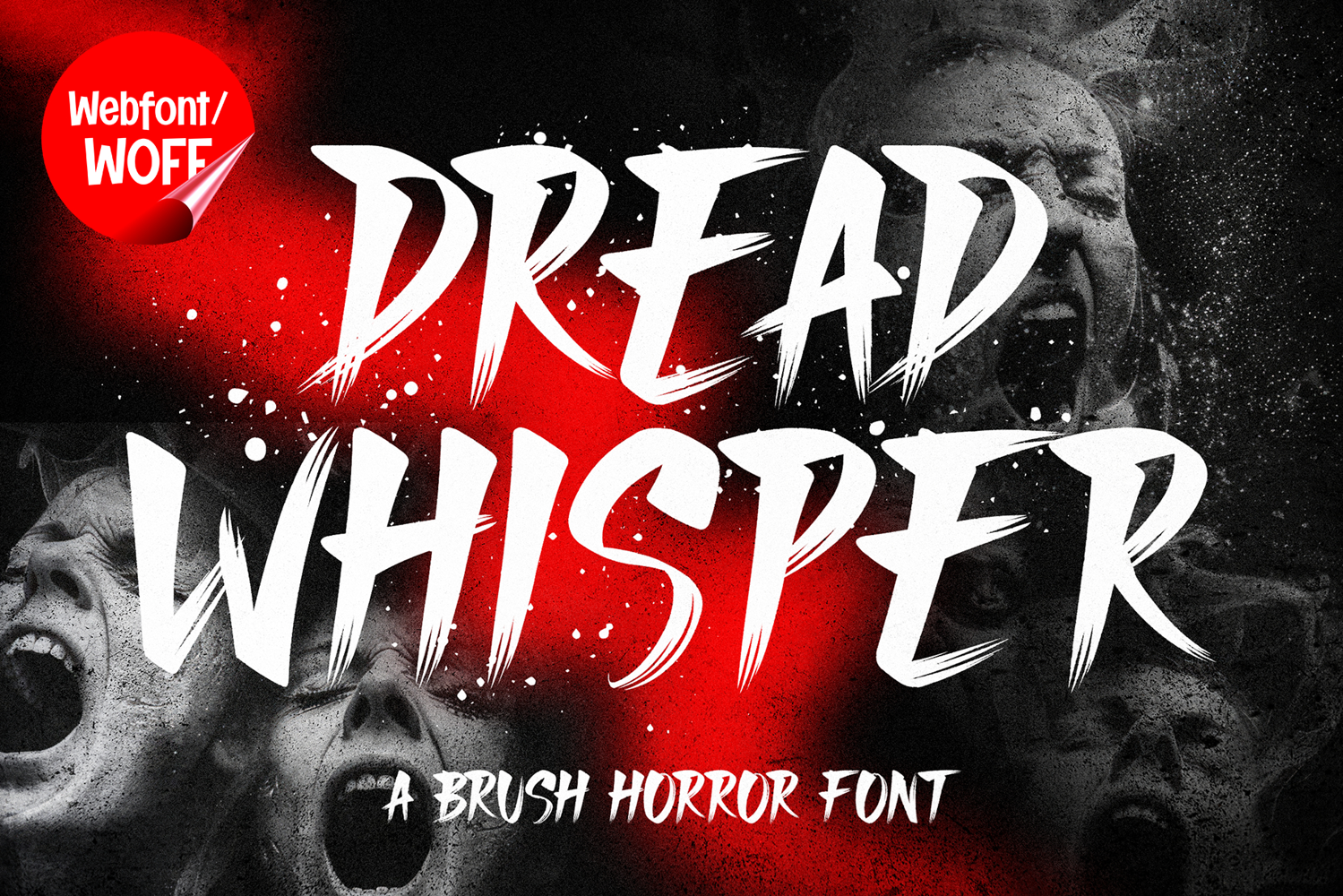
Dread Whisper | Halloween Brush Webfont for Spooky Design
Dread Whisper is a Halloween brush webfont designed to create a haunting and atmospheric look for modern website design. Inspired by eerie brush strokes, horror storytelling, and dark artistic expression, this font features rough textures and irregular forms that give it a raw and unsettling character. It is an excellent choice for projects that aim to deliver a dramatic, spooky, and immersive visual experience.
Dread Whisper includes a complete set of uppercase characters designed with expressive brush-style strokes. The letterforms have a hand-painted appearance with uneven edges and natural flow, creating a sense of movement and tension. These characteristics make it ideal for headlines, banners, hero sections, and featured content where a bold and eerie presence is needed.
In addition to letters, the font includes numbers and punctuation, allowing flexible usage across various parts of a website. It works well for Halloween promotions, horror-themed content, event announcements, and call-to-action sections. Each character maintains a consistent brush horror style, ensuring a cohesive and unified visual identity throughout the layout.
With multilingual support, Dread Whisper includes a wide range of accented characters, making it suitable for international websites and global audiences. This allows content to be displayed clearly across different languages while preserving the dark and expressive aesthetic.
The Halloween brush style of Dread Whisper makes it especially suitable for seasonal websites, haunted attractions, horror blogs, gaming platforms, and themed campaigns. Its rough and dramatic design adds intensity and emotion, helping websites stand out with a strong and memorable visual identity. The brush texture enhances storytelling and gives the typography a handcrafted feel.
Despite its rough and expressive appearance, Dread Whisper is designed with readability in mind. The spacing and proportions are carefully balanced to ensure clarity, particularly in display sizes. This makes it effective for impactful headings and short content elements where both style and usability are important.
Dread Whisper is a webfont that combines brush-style expression with horror aesthetics and modern digital performance. Its textured strokes, eerie details, and dramatic character create a distinctive typographic presence that enhances website design. For projects that require a spooky, artistic, and visually engaging font, Dread Whisper offers a powerful and atmospheric solution.